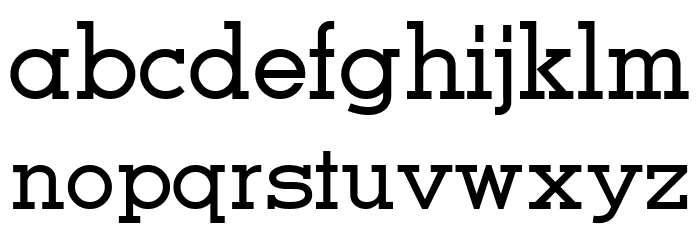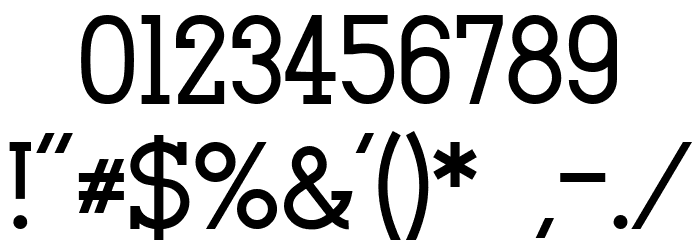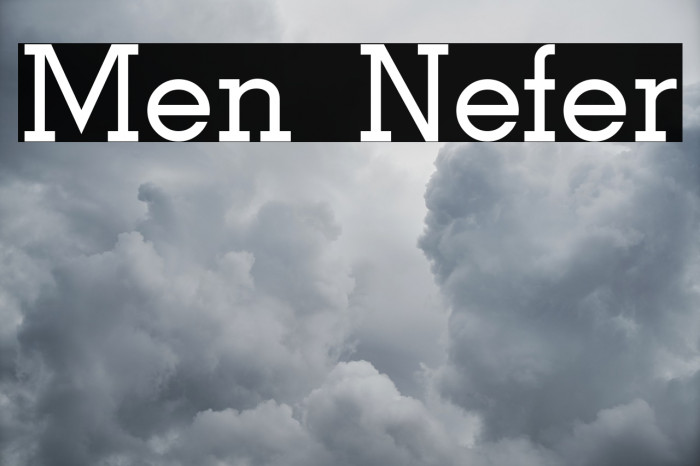
Men Nefer Font
This font features a classic serif style with a modern twist, characterized by its clean lines and balanced proportions. The uppercase letters exhibit a strong presence with slightly elongated serifs, while the lowercase letters maintain a harmonious flow with rounded edges and consistent stroke widths. The numerals are bold and clear, ensuring readability. Special characters are well-integrated, complementing the overall aesthetic. This font is versatile, suitable for both digital and print media, offering a timeless elegance that enhances any design project.
A modern serif font with clean lines and balanced proportions.
- Proposed Projects: Ideal for editorial design, branding, and corporate identity projects.
- Category: Serif
- Overall Style: Classic